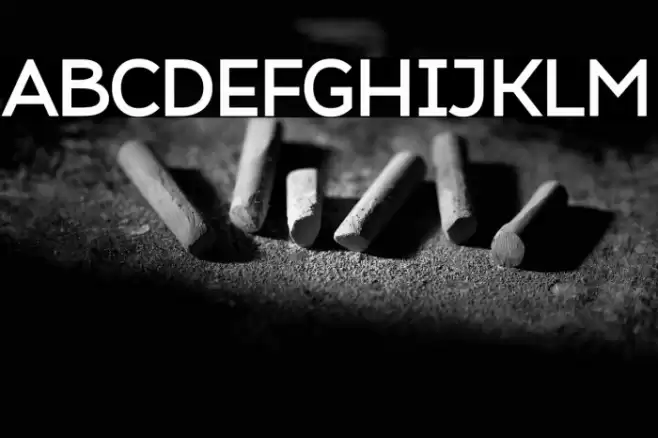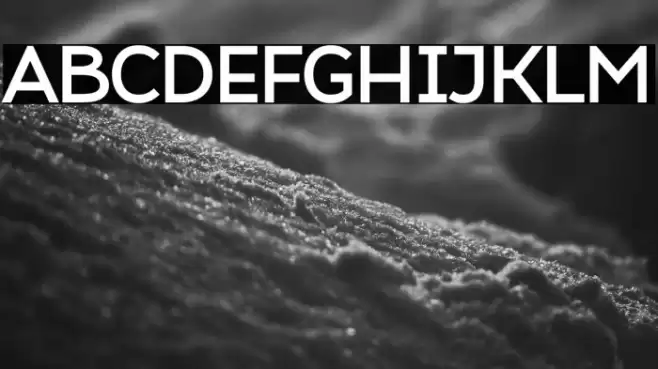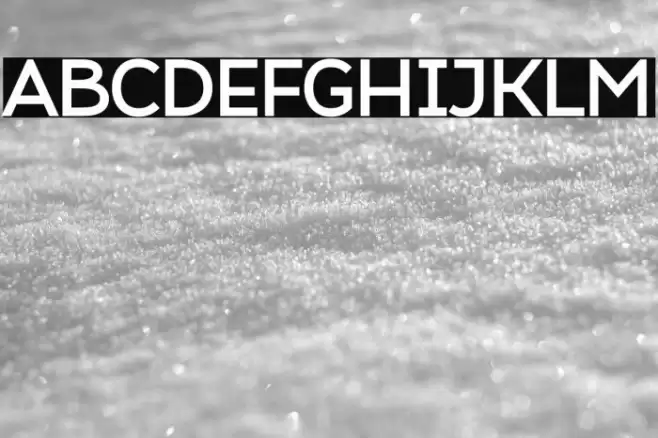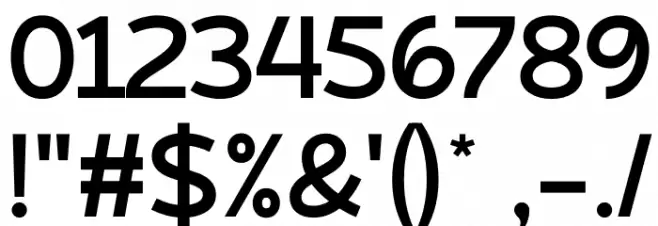
Atozimple Bold Font
Atozimple Bold Description
This font features a clean and modern sans-serif design with bold, uniform strokes that provide a strong visual presence. The characters are well-proportioned, offering a harmonious balance between height and width. The uppercase letters exhibit a straightforward, geometric style, while the lowercase letters maintain a consistent roundness that enhances readability. The numerals are clear and distinct, making them easily distinguishable. Special characters are designed with the same boldness and clarity, ensuring they integrate seamlessly with the rest of the character set. Overall, this font is versatile and suitable for a variety of design applications.
A bold, modern sans-serif font with clean lines and strong visual impact from Uncategorized fonts.
- Proposed Projects: Ideal for branding, advertising, headlines, and digital interfaces where clarity and impact are essential.
- Use Case: Headlines, Logos, Digital Interfaces